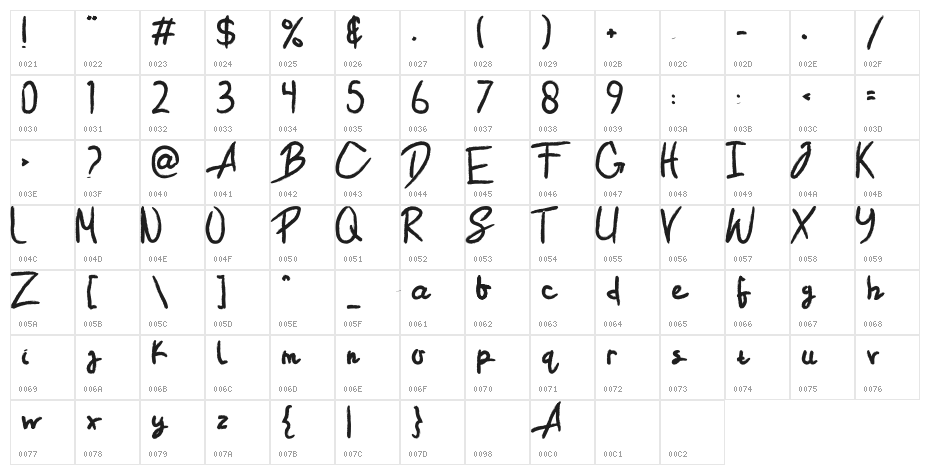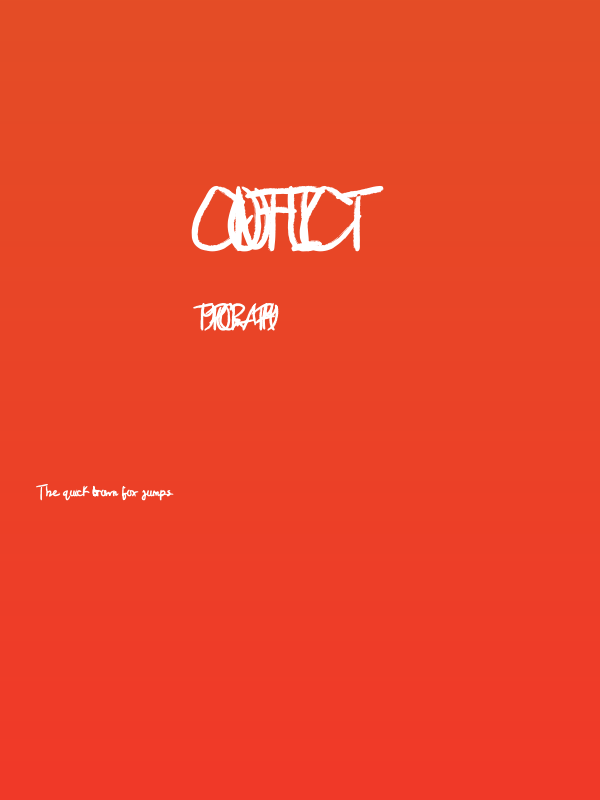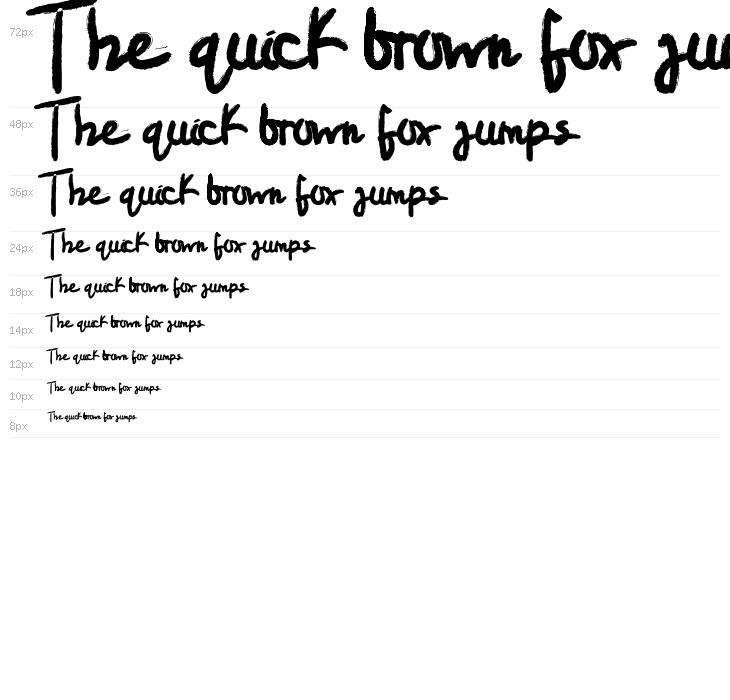
Conflict Font
Conflict Description
This font exhibits a bold, expressive style with a handwritten appearance. The uppercase letters are large and dynamic, with a sense of movement and energy. The lowercase letters maintain a consistent flow, complementing the uppercase with a slightly more restrained form. Numbers and special characters are equally bold, ensuring they stand out in any context. The overall design suggests a casual yet impactful aesthetic, perfect for making a statement. The strokes are thick and varied, adding to the font's lively character.
| Proposed Projects | Ideal for creative projects such as posters, album covers, or branding that requires a personal touch. |